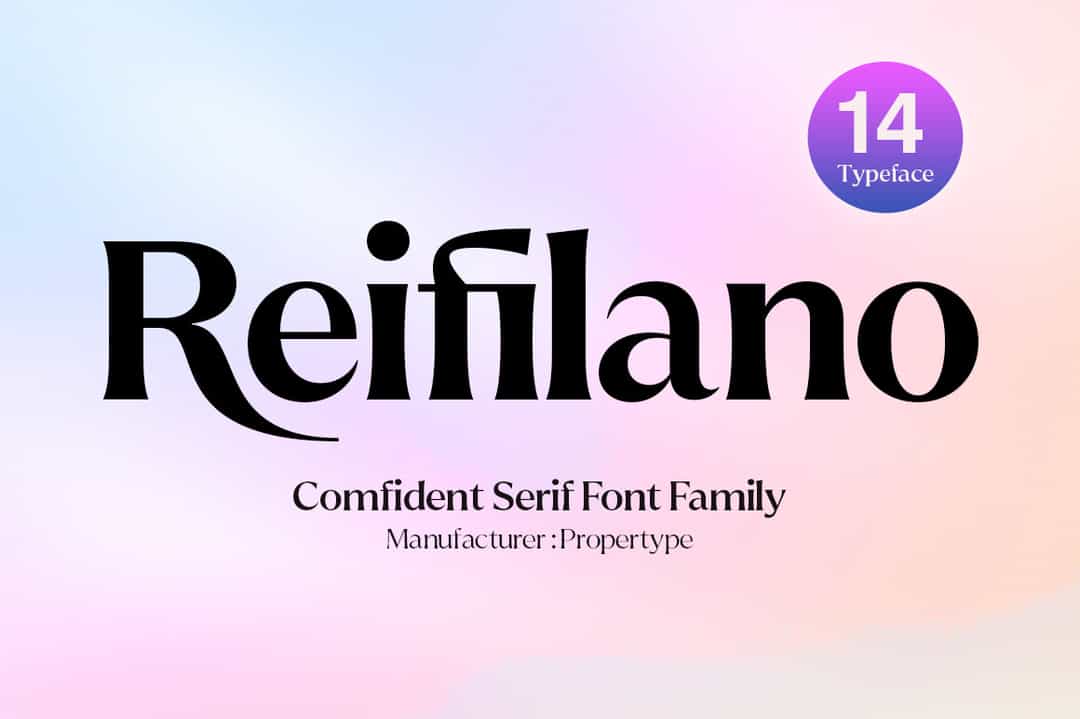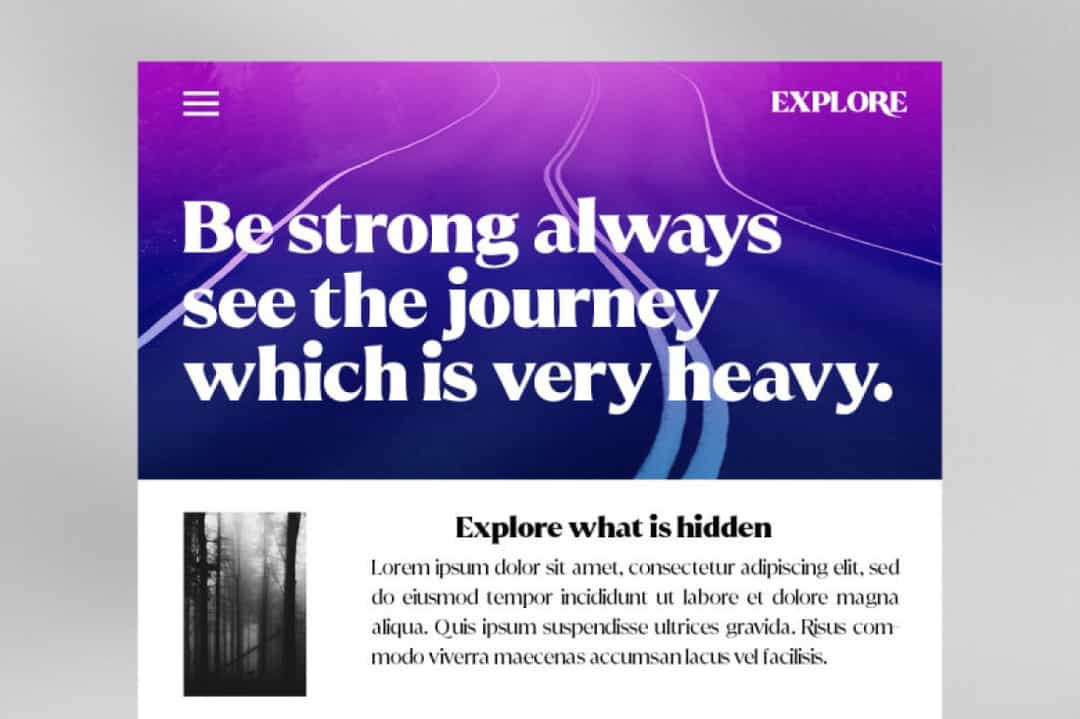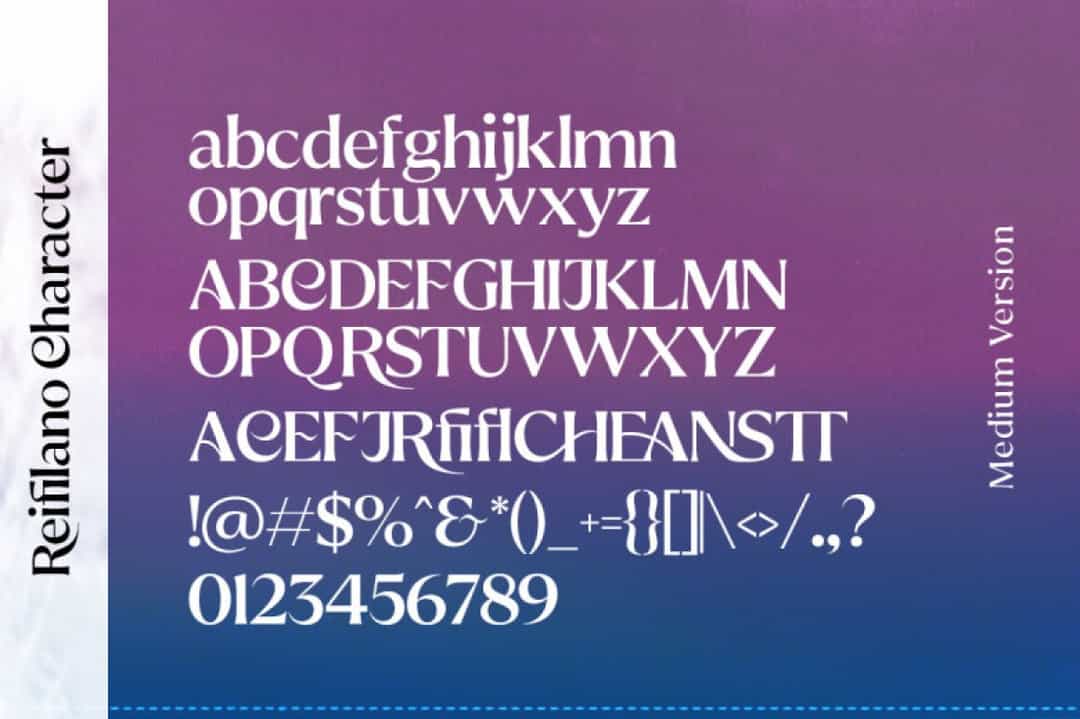
Reifilano is an elegant, contemporary and strikingly assertive serif font family with seven weights ranging from thin to heavy oblique and upright styles that is ideal for all projects with its contemporary, striking and easy-to-read characteristics. Ideal for all purposes!